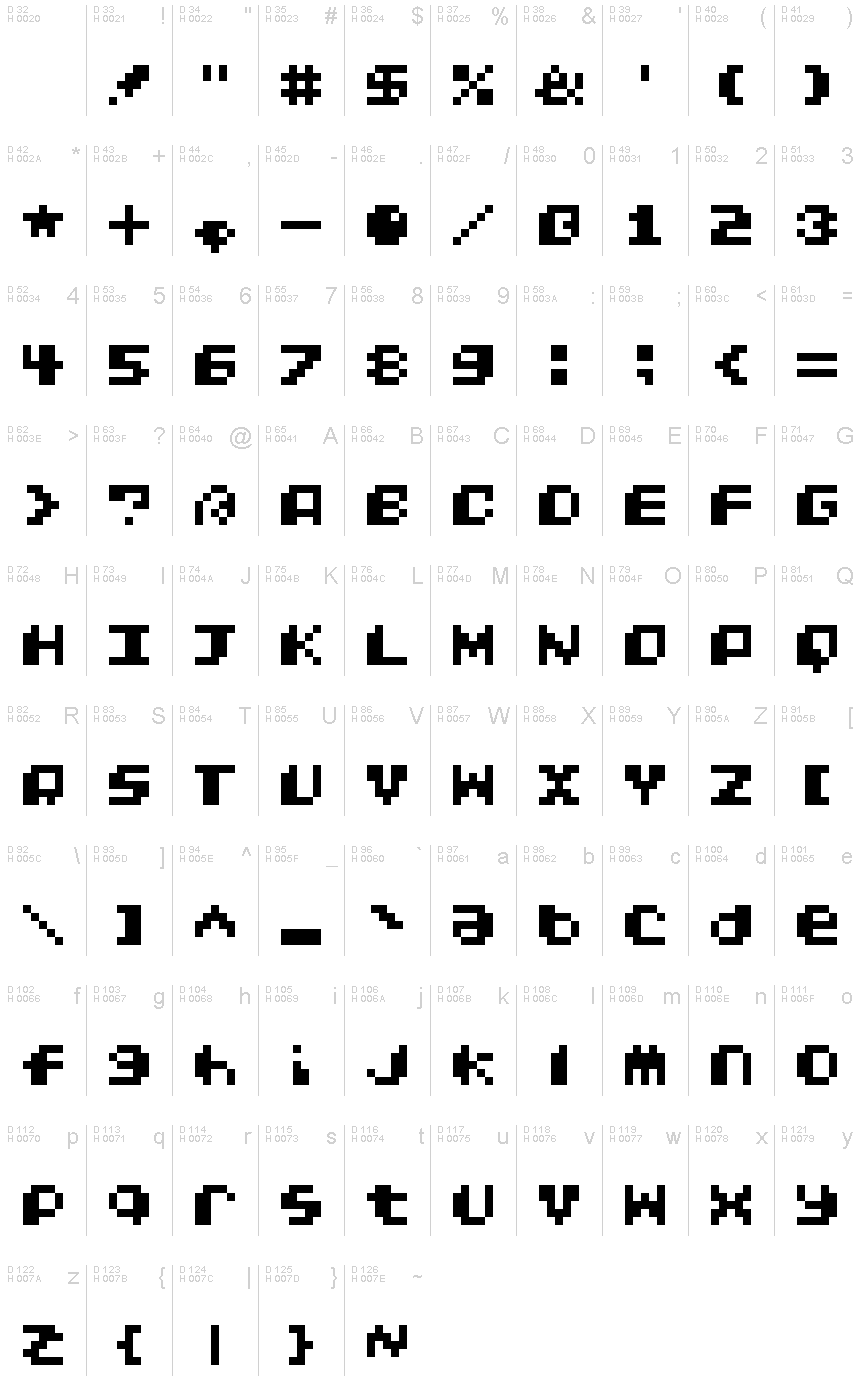
Portable Vengeance Regular
Designer description: Stylized 5x5 pixel font. Tiny but power-packed!
I designed it to have a slightly balloon-esque, oldschool arcade look. Feel free to use it in your games :D
This is also designed to answer the question of whether tiny pixel fonts can have distinctive styles that haven't been seen yet. Of course they can! See the 5x5 Collection for many more.
Original size: 7.5pt (use multiples of this value for pixel perfection)